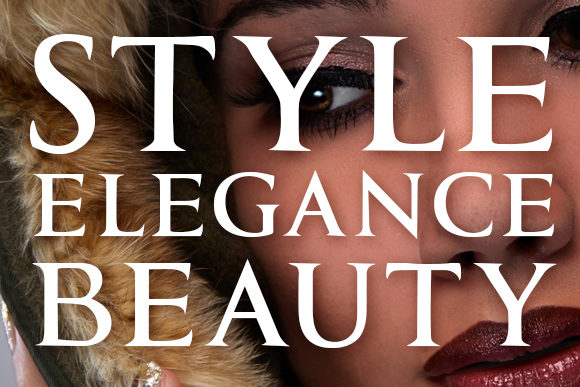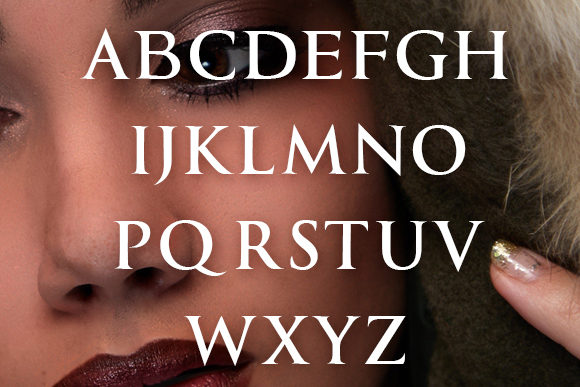
Fashion Font: Elevate Your Designs with a Simple and Casual Serif
Fashion Font is a stylish and versatile serif font that has gained popularity among designers and crafters for its clean and effortless feel. With its well-arranged letters, this typeface is perfect for creating stunning designs that exude elegance and sophistication. In this article, we’ll dive into the world of Fashion Font, exploring its features, benefits, and uses, as well as provide tips on how to make the most of this beautiful font.
What is Fashion Font?
Fashion Font is a simple and casual serif font that boasts an undeniably clean feel. Its neat and beautiful arrangement of letters makes it an excellent choice for a wide range of design projects, from formal to non-formal designs. Whether you’re creating a logo, brochure, or social media post, Fashion Font is sure to make your design stand out.
Key Features of Fashion Font
- Clean and Simple Design: Fashion Font features a clean and simple design that makes it easy to read and understand.
- Serif Style: The font’s serif style adds a touch of elegance and sophistication to any design.
- Beautiful Arrangement of Letters: The font’s letters are well-arranged, making it perfect for creating stunning designs.
- Versatile: Fashion Font is versatile and can be used for both formal and non-formal designs.
Benefits of Using Fashion Font
Fashion Font offers several benefits to designers and crafters, including:
- Elegance and Sophistication: The font’s serif style and clean design add a touch of elegance and sophistication to any design.
- Readability: Fashion Font is easy to read, making it perfect for designs that require a lot of text.
- Versatility: The font’s versatility makes it suitable for a wide range of design projects.
- Time-Saving: With Fashion Font, you can create stunning designs in no time, saving you time and effort.
Uses of Fashion Font
Fashion Font can be used for a variety of design projects, including:
- Logos and Branding: Create a stunning logo for your brand using Fashion Font.
- Brochures and Flyers: Use Fashion Font to create eye-catching brochures and flyers.
- Social Media Posts: Elevate your social media posts with Fashion Font.
- Wedding and Event Designs: Use Fashion Font to create beautiful wedding and event designs.
Tips for Using Fashion Font
Here are some tips for using Fashion Font:
- Pair it with Other Fonts: Pair Fashion Font with other fonts to create a unique and stunning design.
- Use it for Headings and Titles: Use Fashion Font for headings and titles to add a touch of elegance and sophistication.
- Keep it Simple: Keep your design simple and clean to make the most of Fashion Font.
Fashion Font is a beautiful and versatile serif font that is perfect for designers and crafters looking to elevate their designs. With its clean and simple design, serif style, and beautiful arrangement of letters, this font is sure to make your design stand out. Whether you’re creating a logo, brochure, or social media post, Fashion Font is a great choice. So, go ahead and give Fashion Font a try, and take your designs to the next level!